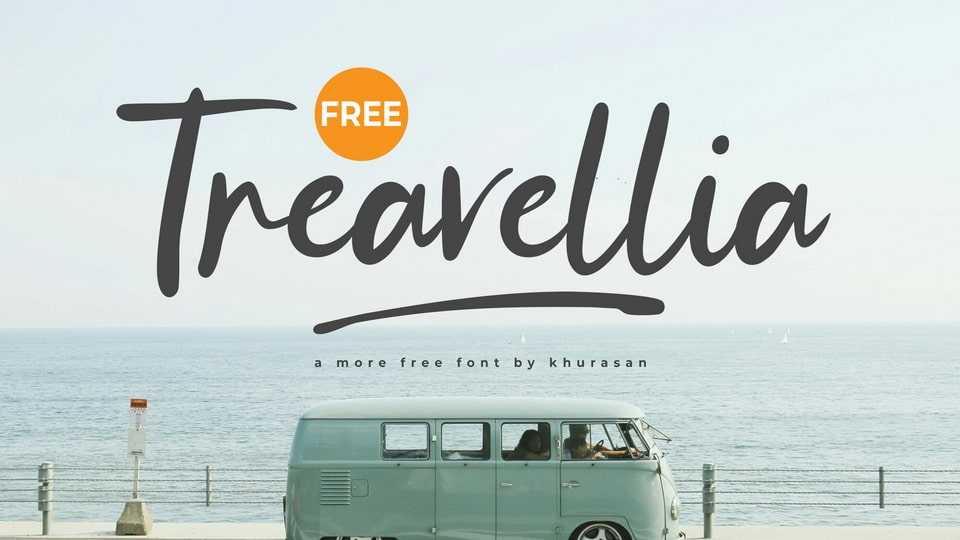
Download Travellia font, a simple and natural handwritten typeface that captures the effortless motion of brush with its dynamic strokes and organic letterforms.